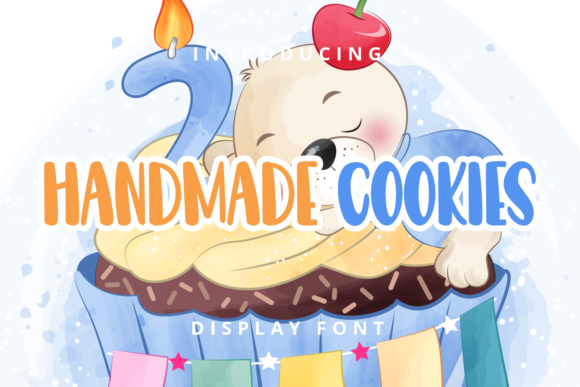
Handmade Cookies Font
Embark on a culinary journey with Handmade Cookies Font, a delectable display font that will tantalize your creative taste buds. Inspired by the charm of freshly baked cookies, this font exudes warmth and sweetness, leaving a lasting impression on your designs.
Crafted with meticulous attention to detail, Handmade Cookies Font features smooth, flowing curves that dance across the page like ribbons of frosting. Its playful personality is perfect for fashion branding, editorial designs, and any project where you want to inject a touch of whimsy and delight.
Picture this: your logo adorned with the charming curves of Handmade Cookies Font, inviting customers to indulge in the delectable offerings of your brand. Imagine your website headers and social media posts bursting with flavor, enticing visitors to explore your products and services. With Handmade Cookies Font, your designs will radiate warmth and charm, leaving a sweet aftertaste that keeps customers coming back for more.
Handmade Cookies Font is not just another font; it's an experience. It's a celebration of creativity, a testament to the power of design, and a reminder that sometimes, the simplest things in life can bring the greatest joy.